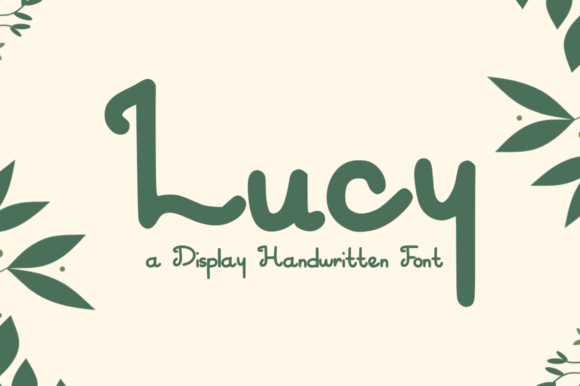
Journey into the world of whimsical aesthetics with Lucy Font, a captivating handwritten script font crafted with meticulous care by Letterayu. This font possesses an inherent charm that radiates through its flowing curves and playful brushstrokes. Lucy Font is the embodiment of creativity and individuality, designed to elevate your visual masterpieces and leave a lasting impression on your audience.
With its inherent whimsical nature, Lucy Font effortlessly adds a touch of enchantment to wedding invitations, imbuing them with a sense of heartfelt warmth and romance. Its elegant strokes dance across thank-you cards, expressing gratitude with a delicate and personal touch. Logos adorned with Lucy Font exude a unique charm that sets your brand apart, capturing the attention of potential customers and leaving an unforgettable mark.
Lucy Font's versatility extends far beyond the realm of weddings and branding. It lends its whimsical touch to greeting cards, transforming them into cherished keepsakes that convey heartfelt messages. Its playful strokes bring life to children's storybooks, enchanting young readers with its captivating charm. Lucy Font is the ultimate choice for adding a touch of magic to any creative endeavor.
Unleash your creativity and immerse yourself in the world of charming aesthetics with Lucy Font. Let its enchanting strokes guide you as you craft visual masterpieces that captivate and inspire. Embrace the limitless possibilities of this handwritten script font and elevate your designs to new heights of creativity.